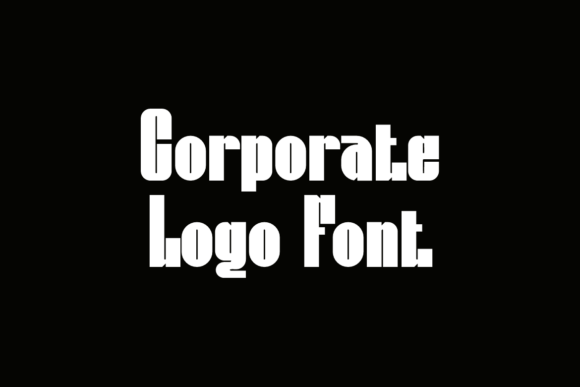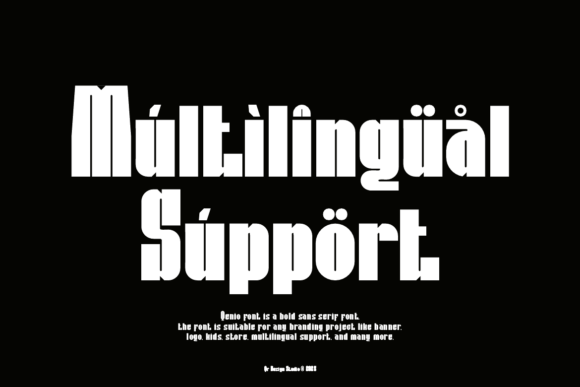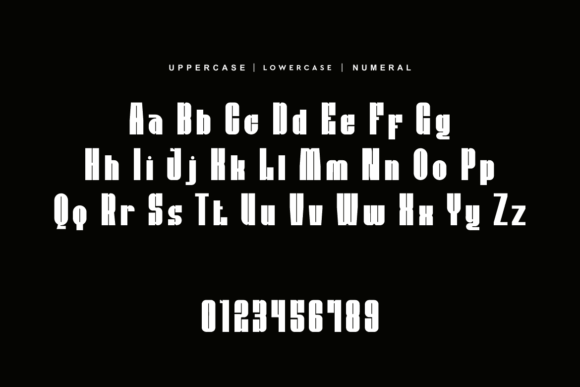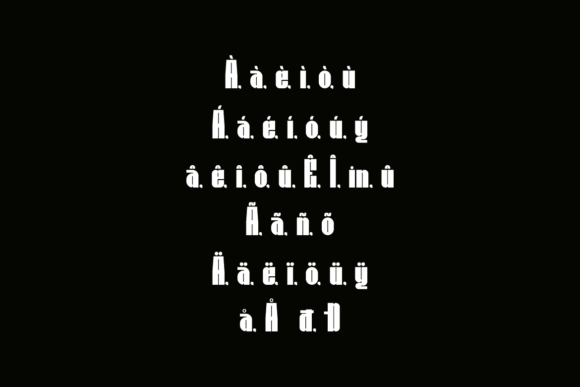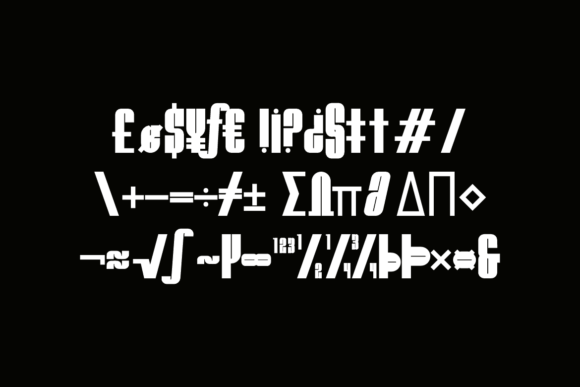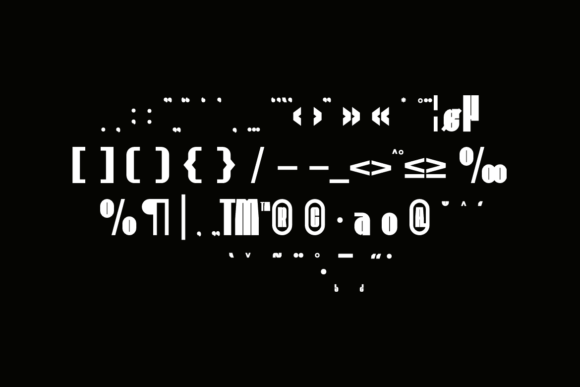
Introduction to Qenio Font
Qenio is a modern bold typeface designed with powerful verticality and narrow width, creating a commanding visual presence with minimal horizontal space.
Its tall, condensed structure gives it a strong editorial voice, ideal for impactful headlines, posters, and branding where attention-grabbing clarity is key Rounded terminals contrast with angular cuts, infusing softness into its rigid frame.